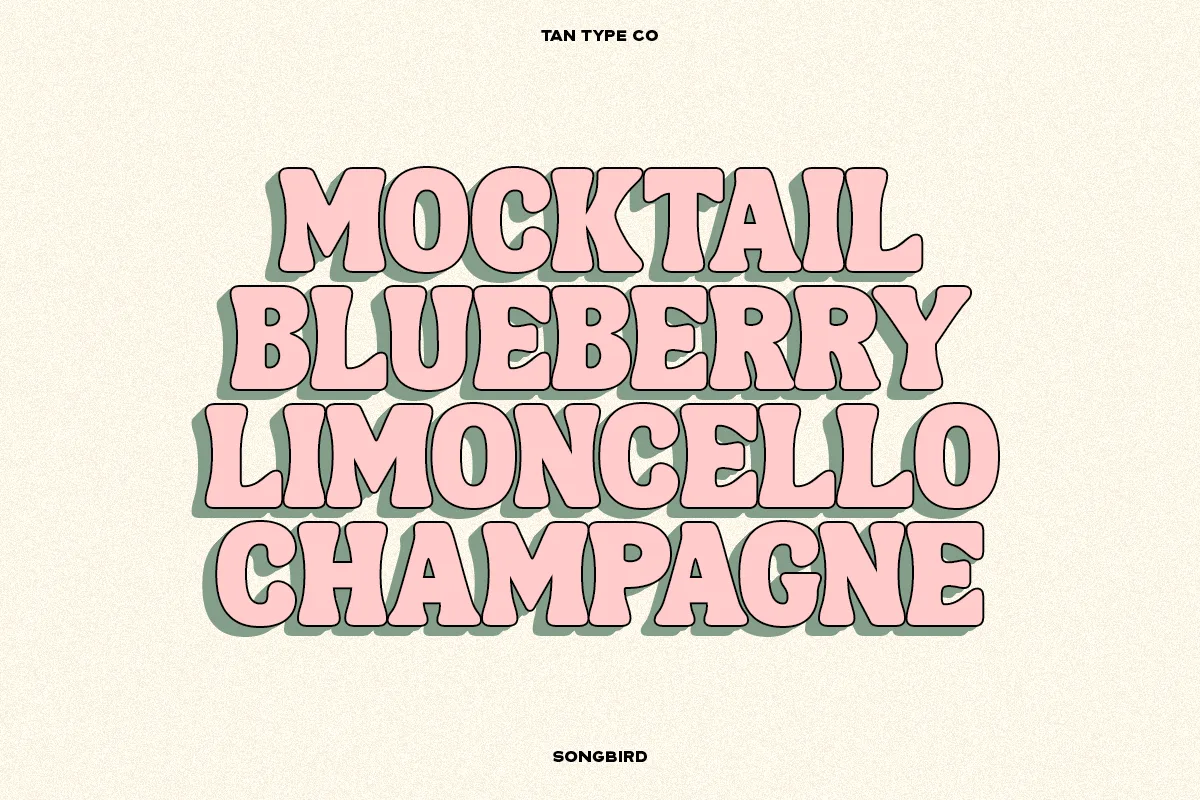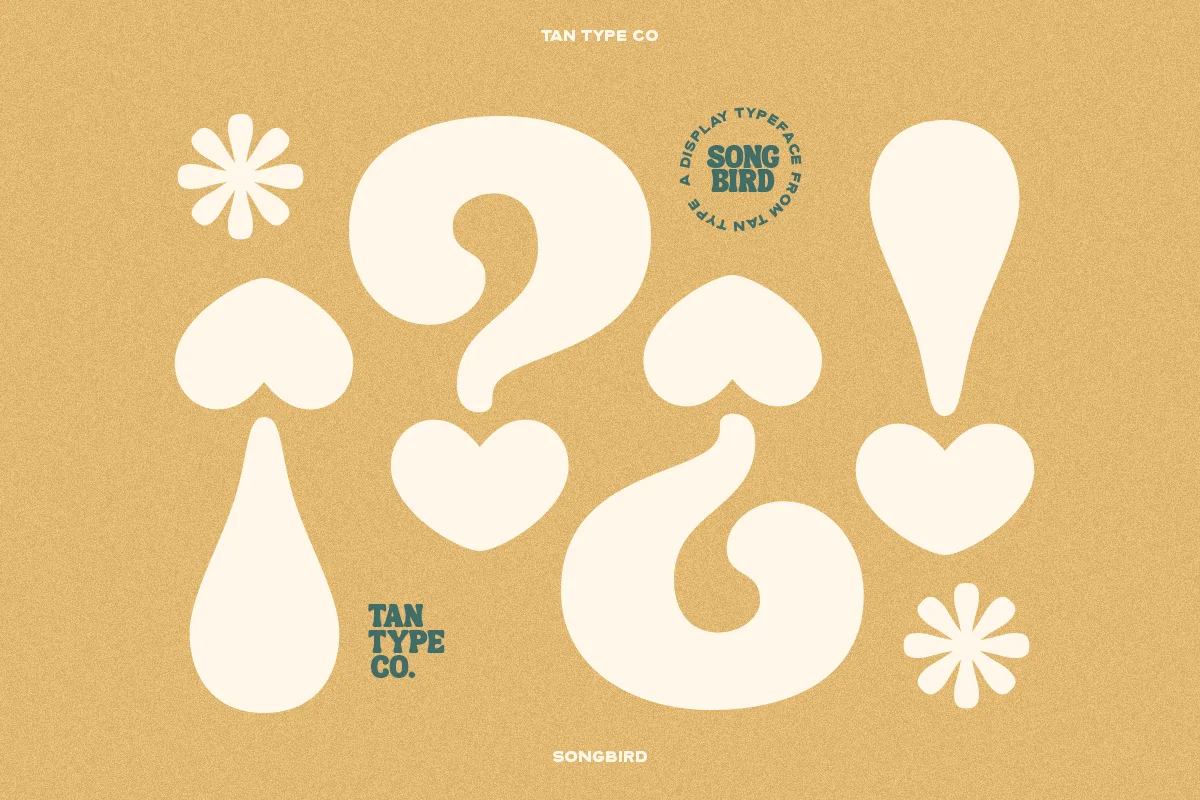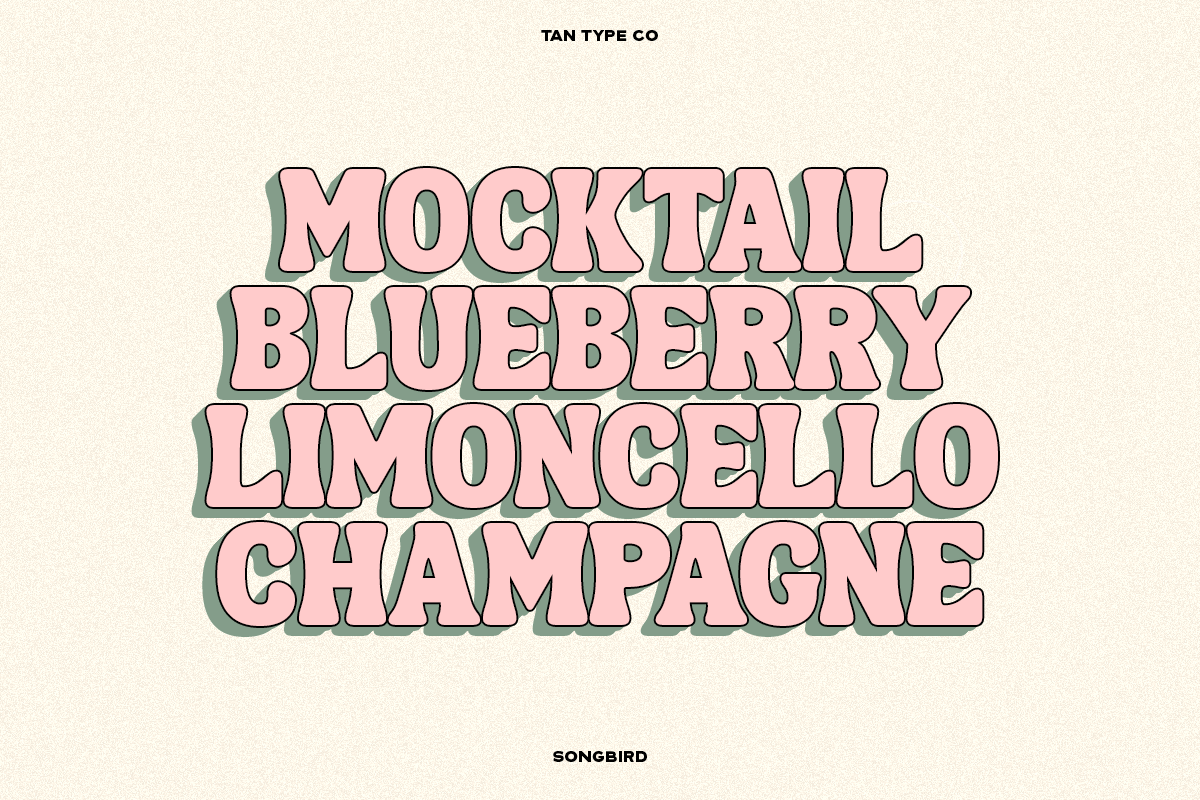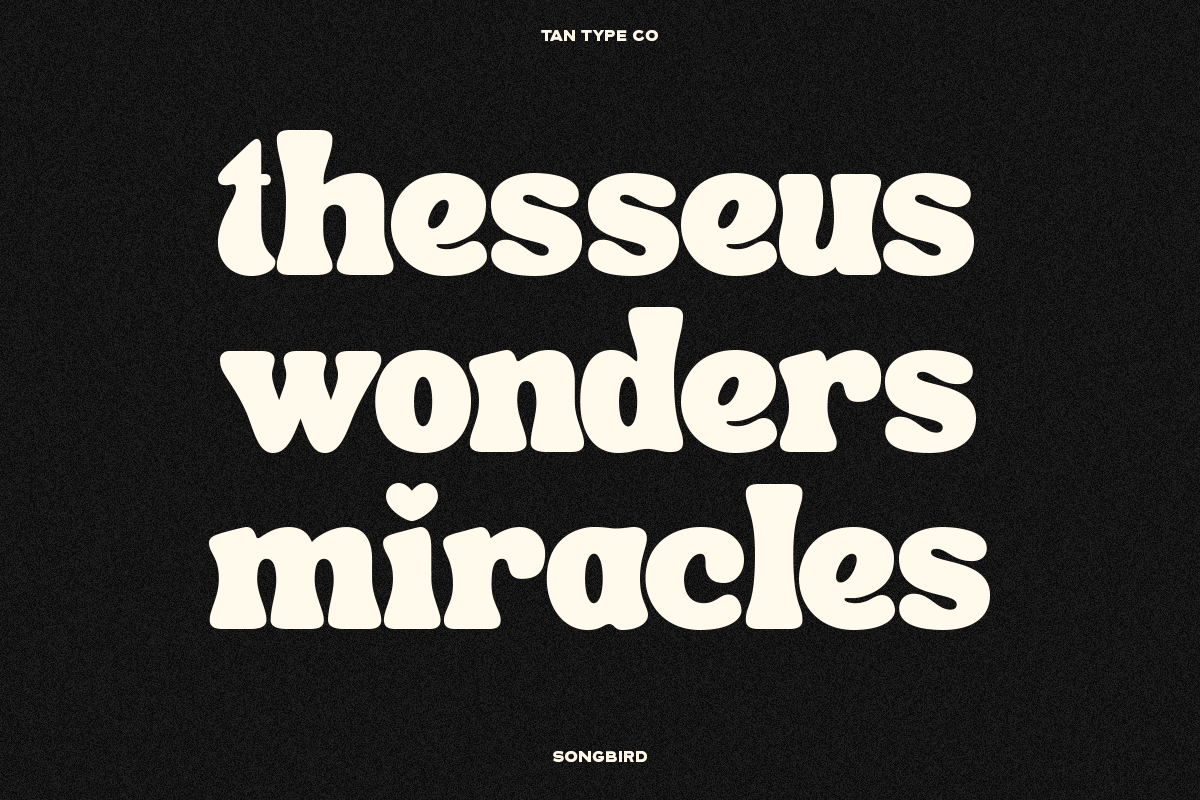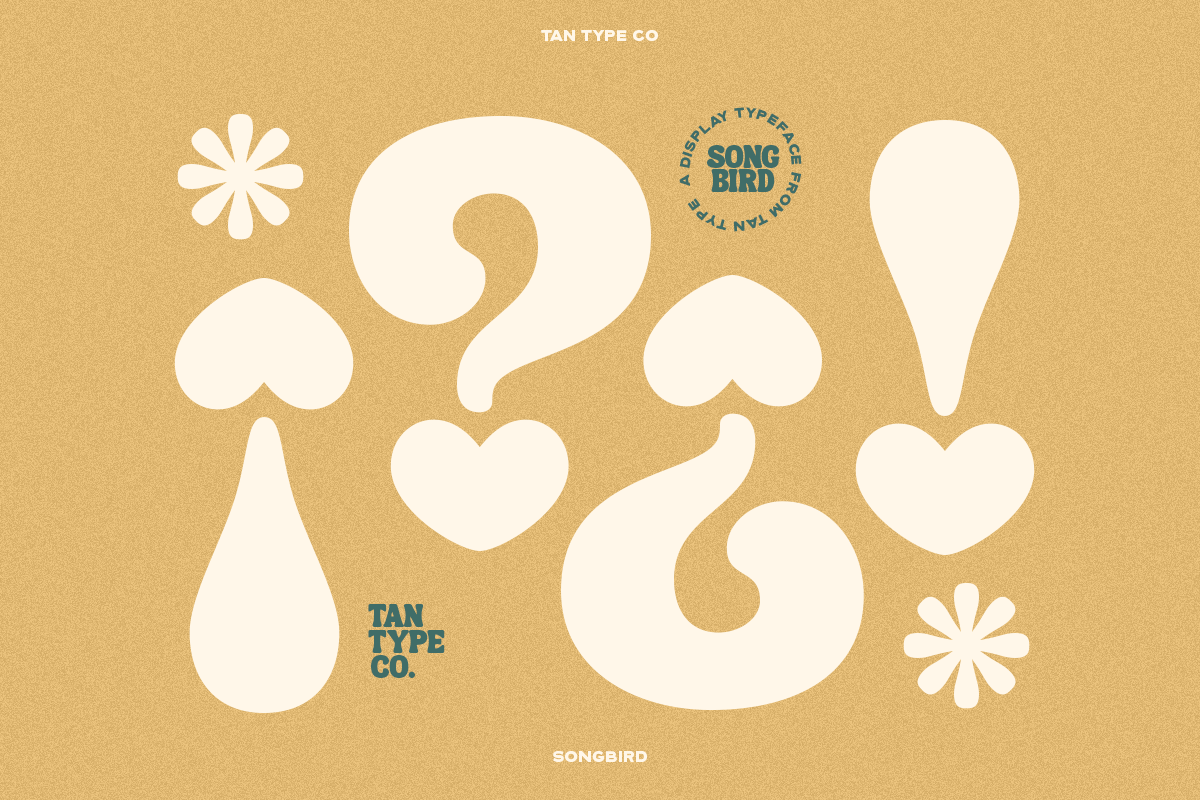
Tan Songbird is an ode to the 70s retro. It’s bold and tightly spaced with soft slightly bulge serif giving it just a good amount of groove. It spells fun and ready to be use for any fun project you have in mind!